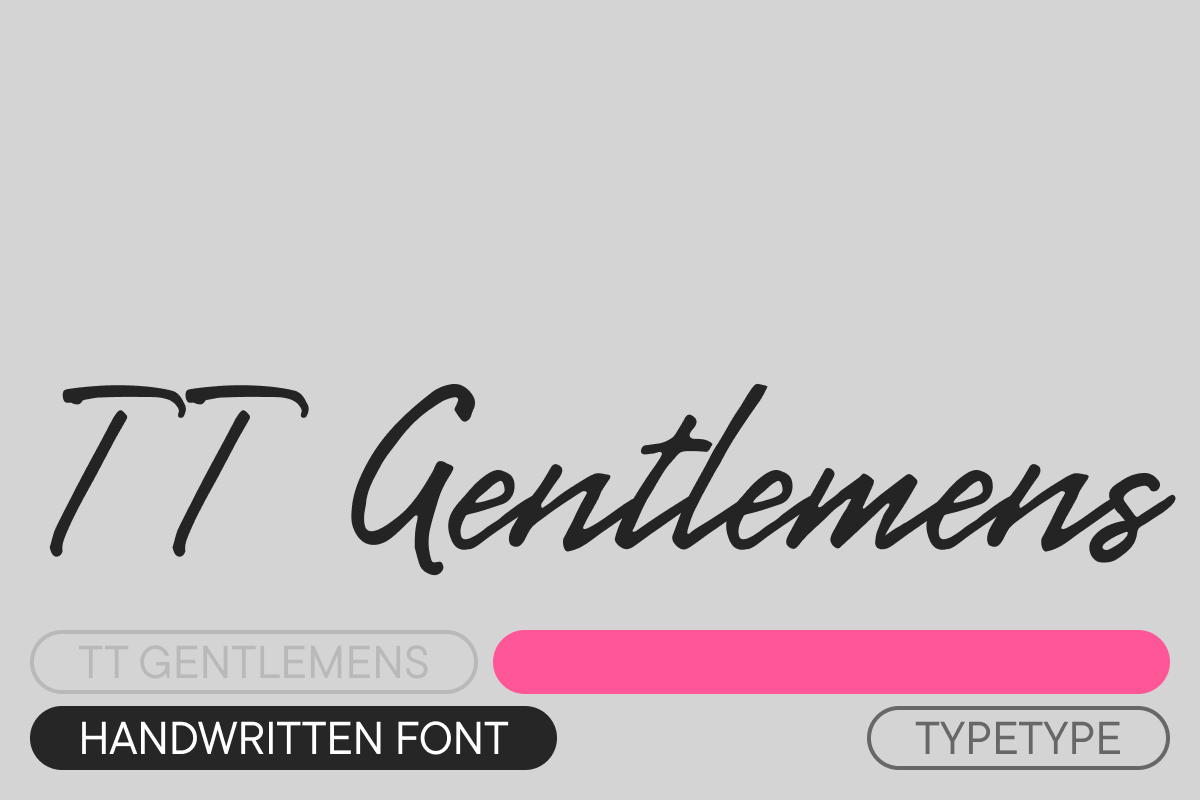
TT Gentlemens Regular
TT Gentlemens is a dynamic handwritten typeface that combines the seriousness and precision in writing with elegance and sophistication. It has the character and style of a true gentleman: restrained and always appropriate, yet confident and striking. TT Gentlemens can be the main design element or its sophisticated complement. It looks excellent both solo and paired with other typefaces, adding expressiveness and modernity to your project.